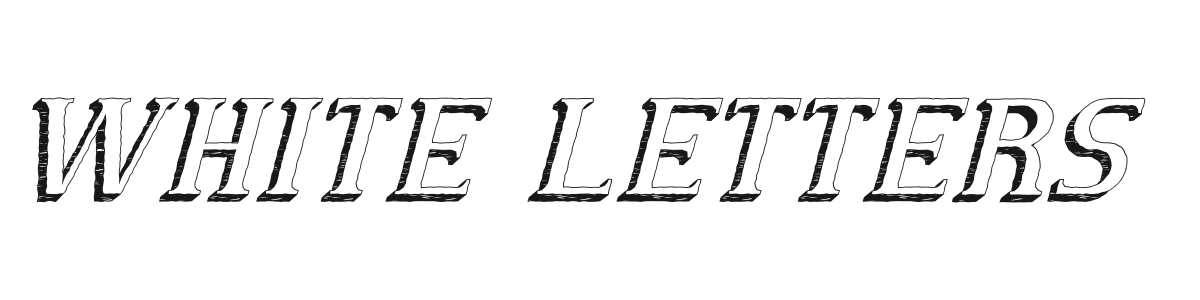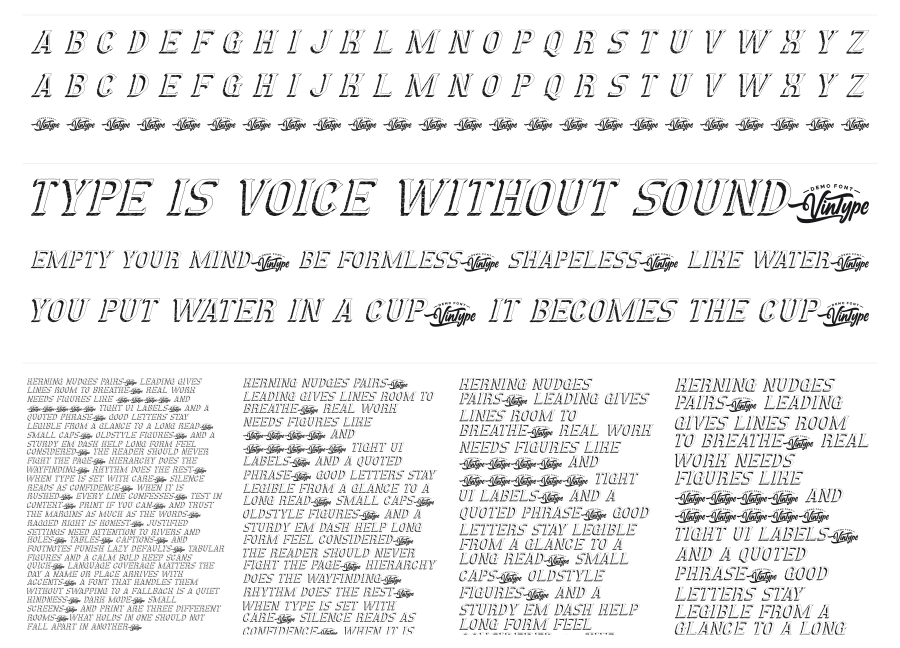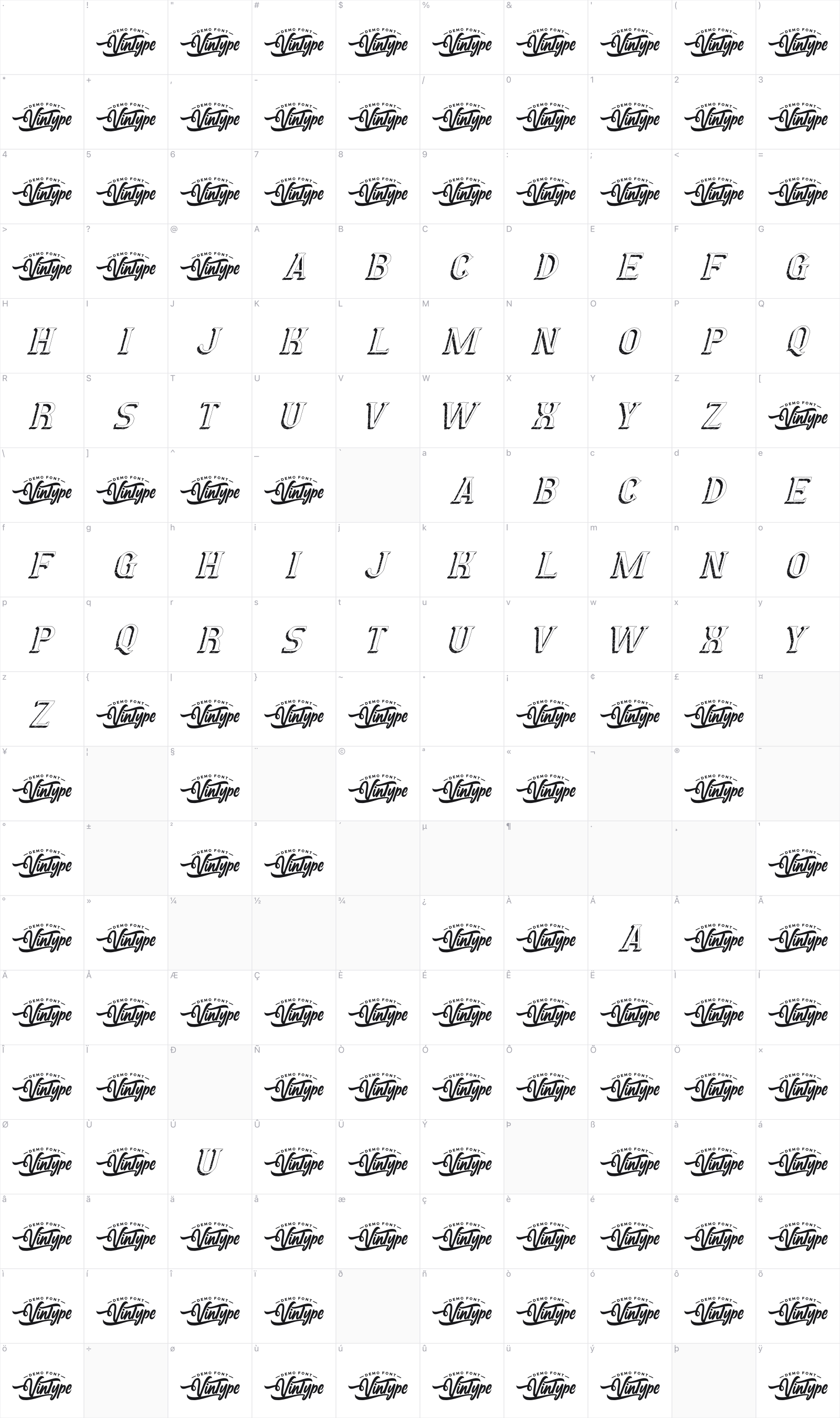
White Letters
White Letters is a distressed Victorian display serif with inline detailing and a heavy italic slant. Rough, eroded edges and worn texture across every stroke give it the look of aged wood-type printing, while the inline cuts add a layer of ornate structure underneath the grit. It thrives on posters, album covers, and anywhere that needs typographic character with historical weight.